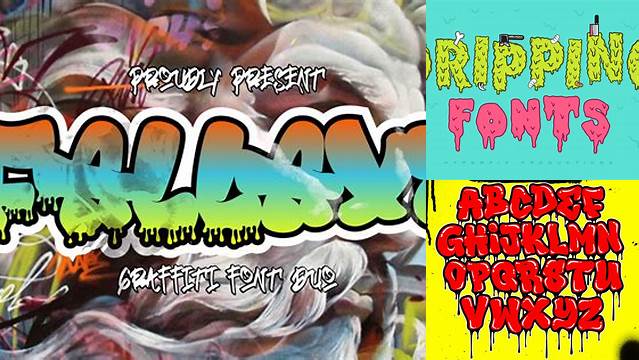
Hey everyone! Want to spice up your designs with some seriously cool, edgy fonts? You're in the right place! We're diving headfirst into the awesome world of dripping graffiti font generators, and the best part? They're totally free to use! Forget those boring, run-of-the-mill fonts; we're talking about fonts that scream street art, rebellion, and undeniable style. Whether you're a seasoned graphic designer, a social media enthusiast, or just someone who loves the look of graffiti, this guide will hook you up with everything you need to create stunning visuals. We'll explore how these generators work, where to find the best ones, and even give you some tips and tricks to make your designs pop. So, grab your virtual spray cans, and let's get started. This is your ultimate guide to mastering the art of dripping graffiti fonts – all without spending a dime. You'll be creating eye-catching artwork that is sure to turn heads. Let's unlock the secrets to crafting incredible typography, and discover how these tools can help you to stand out from the crowd. Get ready to unleash your inner artist and learn about the best dripping graffiti font generator free options available right now!
Exploring the World of Dripping Graffiti Fonts
So, what exactly is a dripping graffiti font? Think of it as typography that's been kissed by the aesthetic of street art. These fonts often mimic the look of spray paint, with bold strokes, dripping effects, and an overall sense of movement and energy. They're designed to grab attention, convey a sense of urban grit, and add a touch of rebellious flair to your projects. The beauty of these fonts lies in their ability to inject personality into any design. They're perfect for logos, posters, social media graphics, album covers, and anything else where you want to make a statement. Unlike regular fonts, these have a unique ability to capture a gritty and rebellious essence. Imagine a font that looks like it was painted directly onto a brick wall with dripping paint. These types of fonts give off the vibe of the street, of art, and of the raw energy that is so unique to graffiti.
When you are looking for the perfect font for your design, consider what feel you want to achieve. If you want something bold and edgy, a dripping graffiti font may be the perfect option for you! These fonts are extremely versatile, and with so many different options, there's bound to be one that fits your style perfectly. With this style of font, you can make your designs stand out by incorporating a distinct urban feel. There is an unmistakable vibe that comes with using this type of font. This aesthetic draws inspiration from the art form of graffiti, embodying the energy, attitude, and individuality of street art. With a dripping graffiti font you'll be able to effectively communicate your message while making your design look visually appealing, making a lasting impression on the audience.
The Appeal of Dripping Graffiti Fonts in Design
Guys, let's be real – in today's design landscape, standing out is everything. Generic fonts just don't cut it anymore. Dripping graffiti fonts are the visual equivalent of a shout in a crowded room; they demand attention and tell a story before a single word is even read. The appeal goes beyond mere aesthetics. These fonts evoke a sense of authenticity, rebellion, and urban cool that resonates with a broad audience. They tap into the spirit of street art, which, at its heart, is about self-expression and challenging the status quo. This makes them particularly effective for brands that want to project an image of edginess, innovation, or a connection to youth culture. Think of a streetwear brand, a music festival, or even a tech startup looking to break the mold. A dripping graffiti font can instantly communicate these values. Furthermore, these fonts often possess a high degree of visual impact. Their bold strokes, dynamic shapes, and dripping effects create a sense of movement and energy that's hard to ignore. They're designed to be seen, and they're designed to make an impression. In a world saturated with visual content, that's a massive advantage. The strategic use of a dripping graffiti font can transform a simple design into a bold statement, ensuring it captures the viewers' attention and leaves a memorable mark.
Mastering the Art of Using Dripping Fonts
So, you've found a dripping graffiti font you love. Awesome! But how do you actually use it to create killer designs? It's not just about slapping some text on a background; it's about understanding how the font interacts with other elements and how to make it visually appealing. First, consider your background. Graffiti fonts often work best against textures or backgrounds that complement their urban aesthetic. Think exposed brick, concrete, or even a gritty, distressed texture. Avoid using these fonts on a busy or distracting background; the font should always be the focal point. Secondly, pay attention to color. Bold, vibrant colors are a staple of graffiti art, so don't be afraid to experiment with bright hues and contrasting color combinations. Consider the message you are trying to communicate and make sure that your color choices enhance that message. Finally, experiment with layering and effects. Try adding a drop shadow, an outline, or a 3D effect to make your text pop. You can also play with the font's opacity or use textures to create depth and visual interest.
Tips for Creating Eye-Catching Designs
Want to take your designs to the next level? Here are a few extra tips for maximizing the impact of your dripping graffiti font. First, think about composition. Consider how your text is arranged on the canvas. Try different layouts, sizes, and orientations to create a dynamic and visually appealing design. Don’t be afraid to experiment with diagonal lines, asymmetrical arrangements, or overlapping elements. Second, consider the context. Where will your design be seen? Is it a website banner, a social media post, or a print advertisement? Tailor your design to fit the platform and the target audience. Third, contrast is key. Use contrasting colors and elements to make your text stand out. Pair a bold graffiti font with a clean sans-serif font to create a balanced and professional look. Fourth, don't overdo it! Sometimes, less is more. Avoid using too many fonts or effects, as this can make your design look cluttered and unprofessional. Keep your design clean and focus on creating a clear and concise message. Remember, the goal is to grab attention and make a lasting impression. These tips will help you ensure your designs look their best using a dripping graffiti font.
Customization Options in Graffiti Font Generators
One of the coolest things about using a dripping graffiti font generator is the level of customization you have. These generators typically offer a wide array of options to tweak the look and feel of your font, allowing you to create something truly unique. You will often find options to adjust the thickness of the font's strokes, the angle and intensity of the drips, and the overall texture of the font. Many generators also allow you to choose from a variety of different graffiti styles, such as bubble letters, block letters, or wildstyle fonts. Some advanced generators even offer the ability to add custom effects, like spray paint splatters or 3D effects. This level of control means you can tailor your font to perfectly match your vision and brand. With a little experimentation, you can create a font that's truly one of a kind.
Enhancing Your Text with Special Effects
Ready to make your text really pop? The dripping graffiti font generators often include special effects that can add extra flair to your designs. Drop shadows are a classic choice; they give your text a sense of depth and dimension. Consider playing with the angle, blur, and color of the drop shadow to create different effects. Outlines can also be a great way to make your text stand out, especially against a busy background. You can experiment with different outline colors and thicknesses to create a distinct visual effect. Some generators offer 3D effects, which can make your text appear to jump off the page. Again, this can be a great way to add depth and visual interest to your designs. And finally, consider adding textures to your text. You can add textures like concrete, brick, or even spray paint to give your text a more realistic and authentic look. Using a dripping graffiti font generator will let you combine all these effects to make your text look amazing.
Final Thoughts and Call to Action
Now that you've explored the world of dripping graffiti font generators, it's time to put your knowledge into practice! Start by experimenting with different generators and styles. Don't be afraid to play around with different effects and customizations. Practice your designs and remember that the more you practice, the better you'll get. Most of all, have fun and let your creativity flow. Share your designs with the world. Show off your work on social media, your website, or in online design communities. We can’t wait to see what you create. The world of graffiti fonts is vibrant and full of possibilities. We hope this guide has inspired you to get creative. Embrace your creative side by using a dripping graffiti font today!